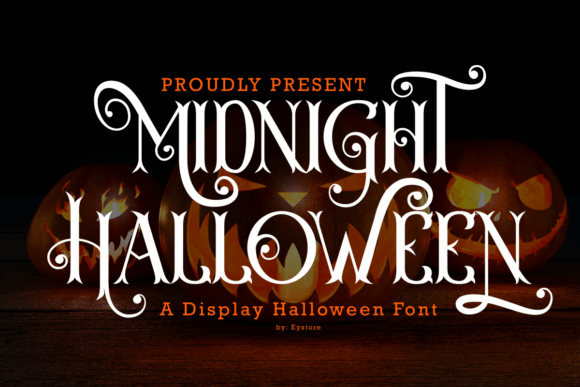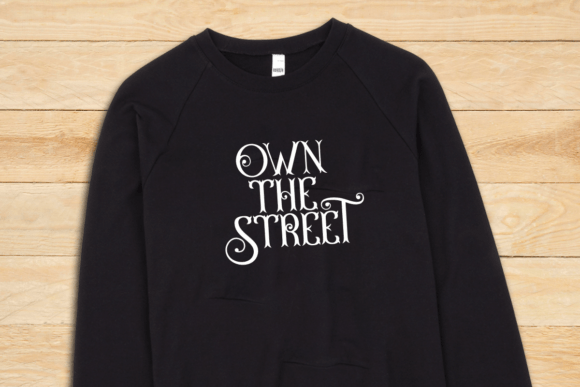
Midnight Halloween Font
Midnight Halloween is a Halloween-themed display font that combines elegance and spooky style, with tall, sharp characters and dramatic swirls typical of Halloween decor. This font is perfect for spooky-themed designs like Halloween party invitations, tote bags, mugs, stickers, and various other creative projects that want to appear mysterious yet stylish.